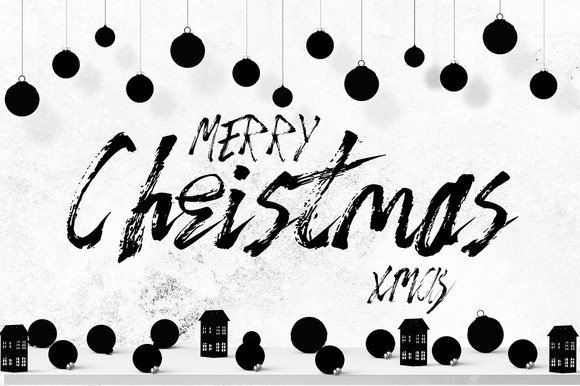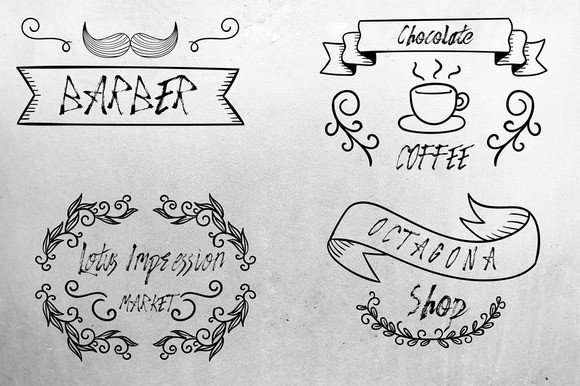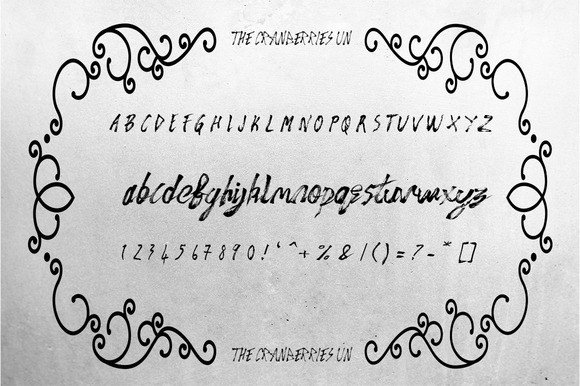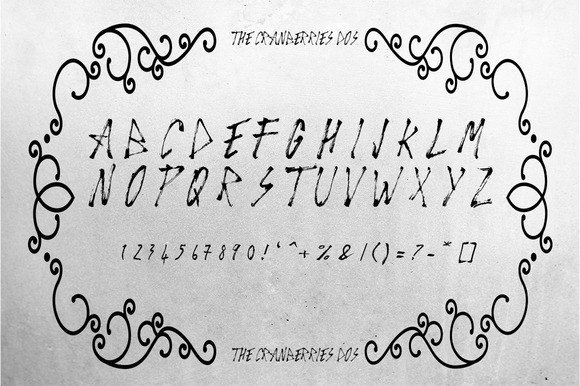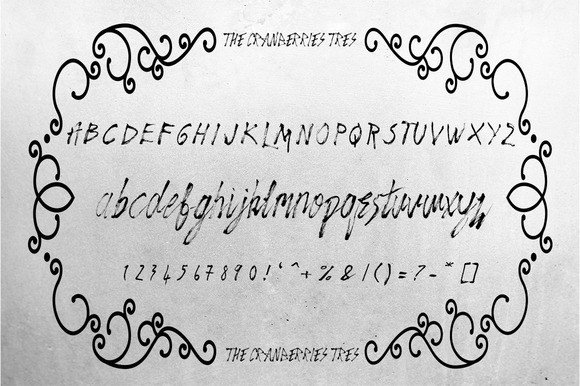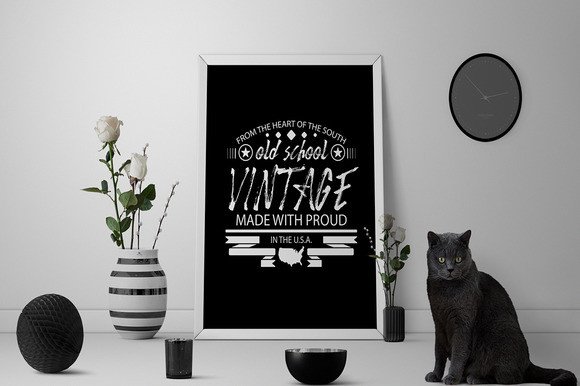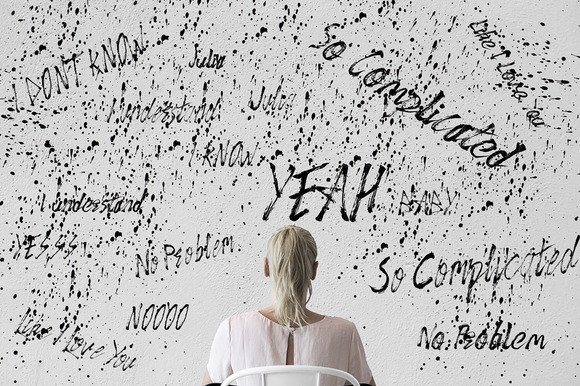
The Cranberries Font
About The Cranberries Font
Cranberries are a beautiful typeface. Perfect for designing invitations, greeting cards, branding materials, business cards, quotes, posters, t-shirts, and much more!